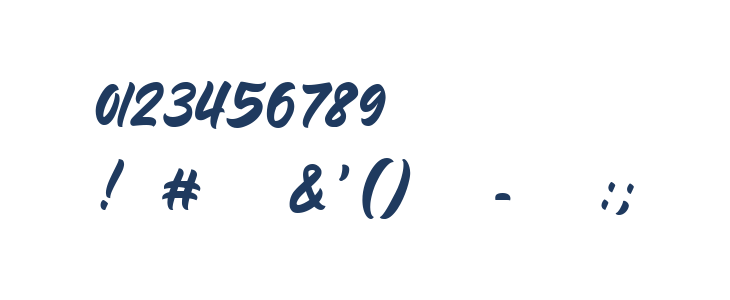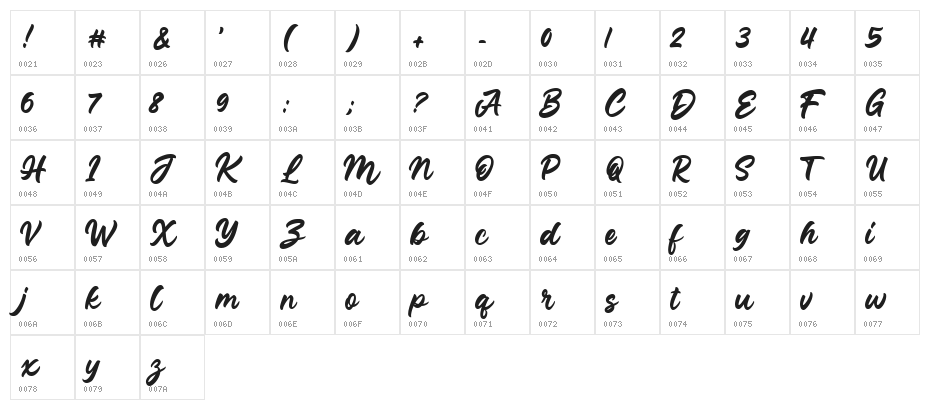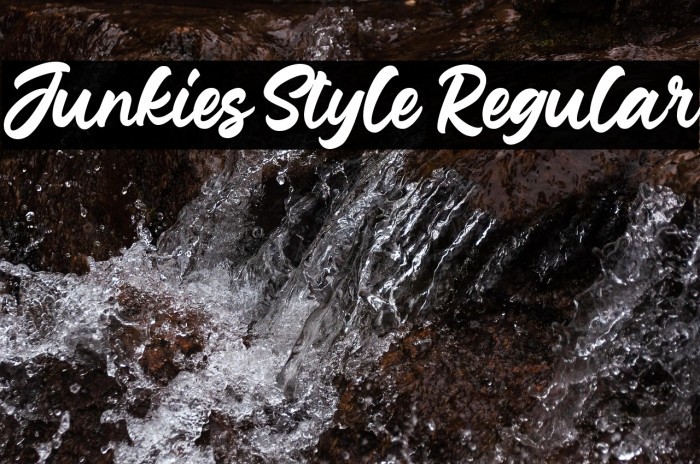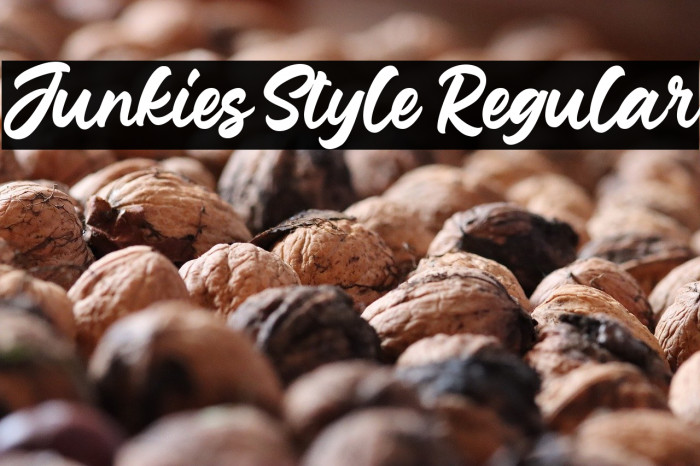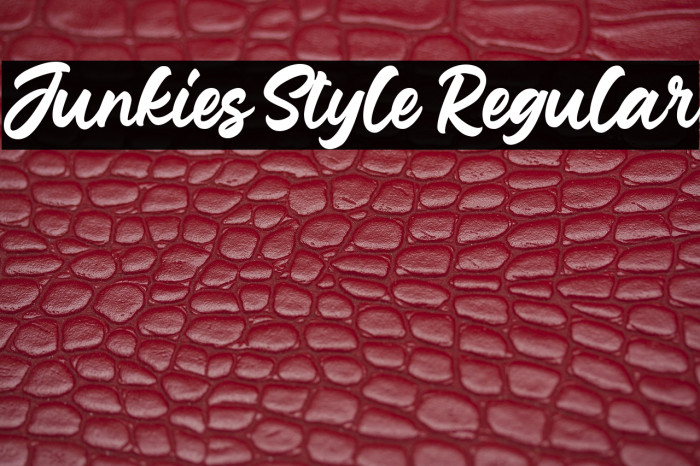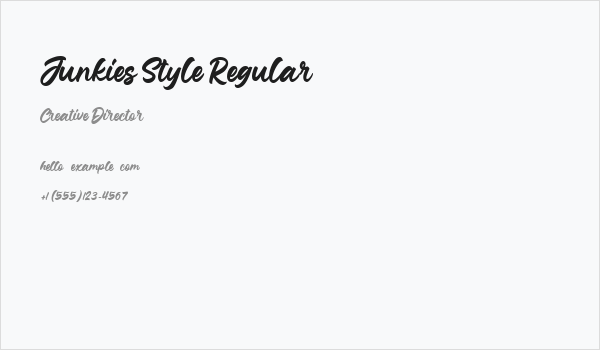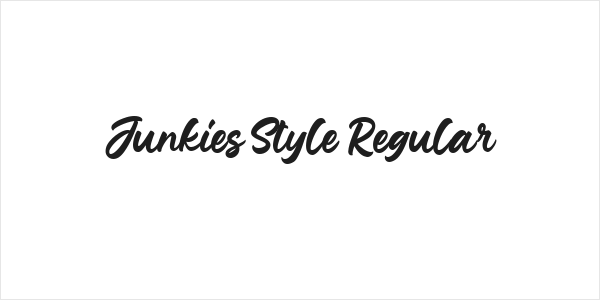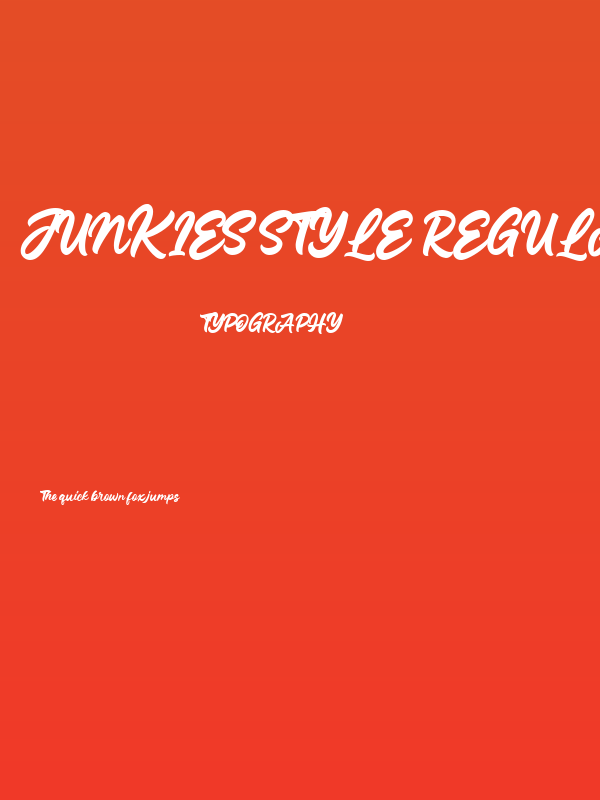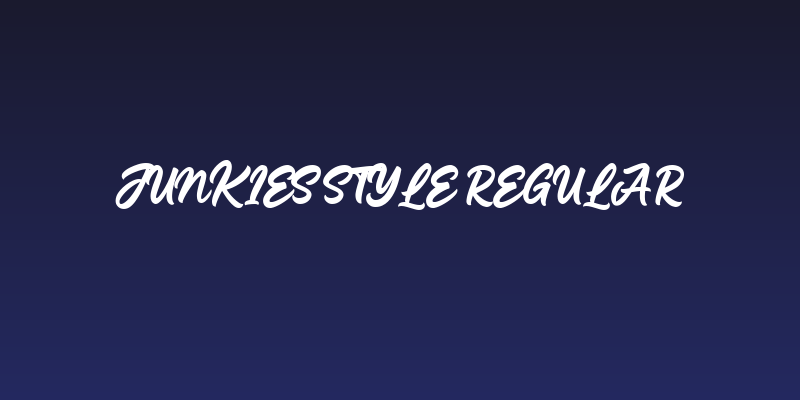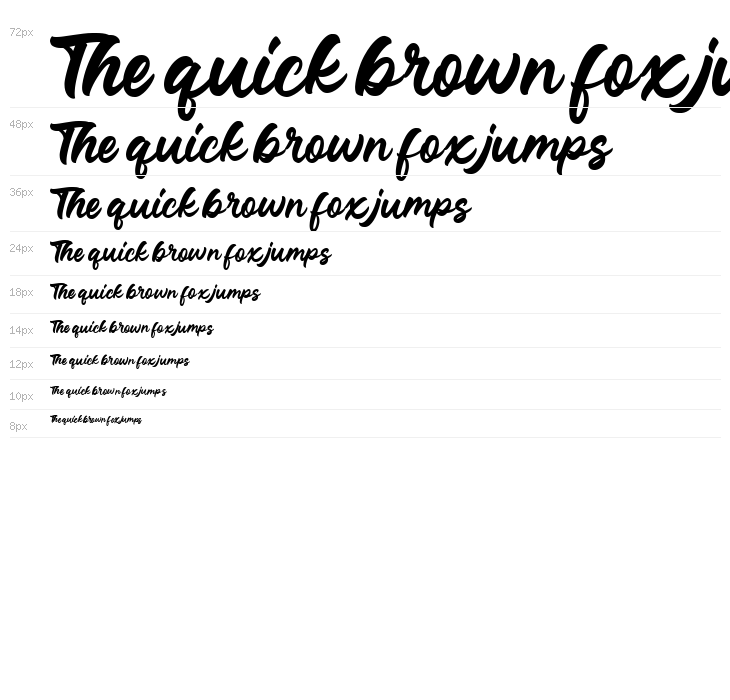
Junkies Style Regular Font
Junkies Style Regular Description
This font features a bold and expressive script style with a handwritten appearance. The letters are connected in a fluid, cursive manner, giving it a dynamic and energetic feel. The strokes are thick and consistent, providing a strong visual impact. The uppercase and lowercase letters maintain a cohesive style, with slight variations in the curves and loops that add character. The numerals and special characters are designed to match the overall aesthetic, ensuring a harmonious look across all text elements. This font is ideal for projects that require a personal touch or a bold statement.